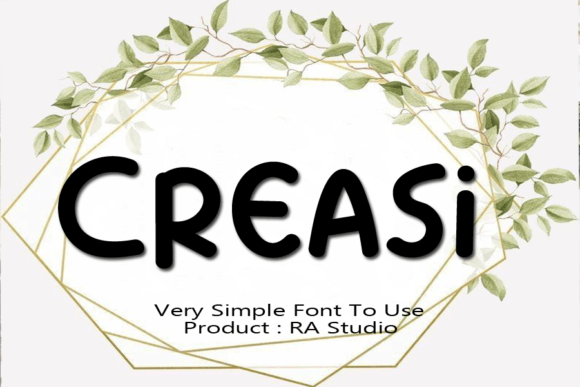
Introducing Creasi Font: The Epitome of Elegance and Simplicity
In a world saturated with digital noise, your brand's identity has never mattered more. In this realm of fierce competition, Creasi Font emerges as a beacon of distinction, a font family crafted with meticulous care to elevate your brand's presence.
Step into the realm of sophistication with Creasi, a classic handwritten font that exudes timeless charm. Its free and random style lends an air of authenticity and individuality, setting your brand apart from the mundane.
Unleash your creativity and explore the boundless possibilities of Creasi. Whether you're crafting a captivating logo, designing a memorable headline, or shaping your corporate identity, Creasi seamlessly adapts, becoming an integral part of your brand's DNA.
With Creasi, you'll discover a font that transcends the boundaries of mere aesthetics. It's a font that speaks to your audience, evoking emotions and leaving a lasting impression.
Immerse yourself in the versatility of Creasi. From the dynamic energy of the apparel industry to the vibrant world of posters and music, Creasi effortlessly complements your creative vision. Its adaptability extends to the digital realm, seamlessly gracing websites and social media platforms like Instagram and YouTube. Unleash your imagination and let Creasi be your creative compass.